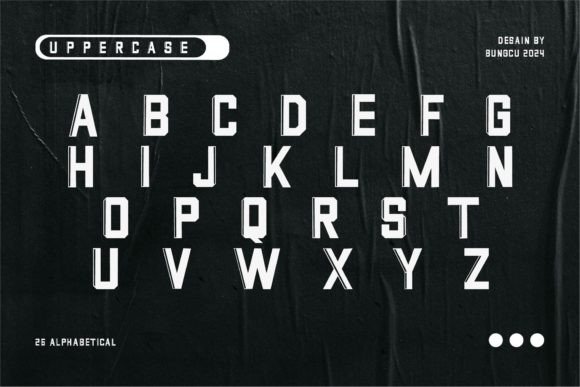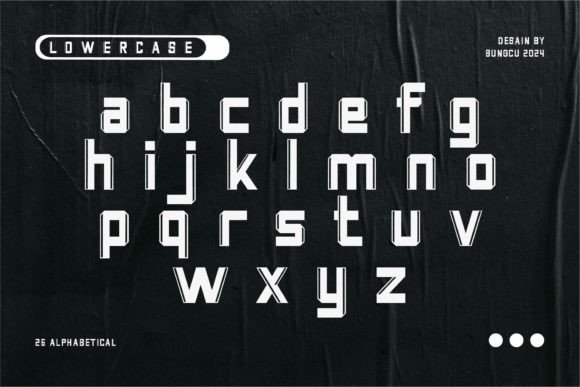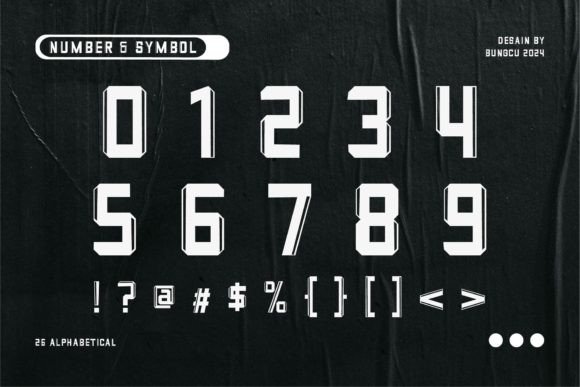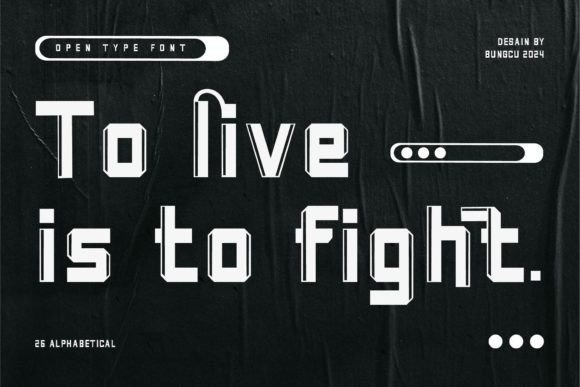
Introduction to Routher Font
Routher is a typeface that seamlessly blends the timeless elegance of mid-century modernism with bold, innovative touches, resulting in a design that is both visually stunning and rich in character.
Inspired by the clean lines and iconic geometric forms of the Bauhaus movement, along with the distinctive lowercase letters of Futura, Routher offers a harmonious balance between classic elements and modern flair Every detail in Routher is meticulously crafted to convey both elegance and strength.